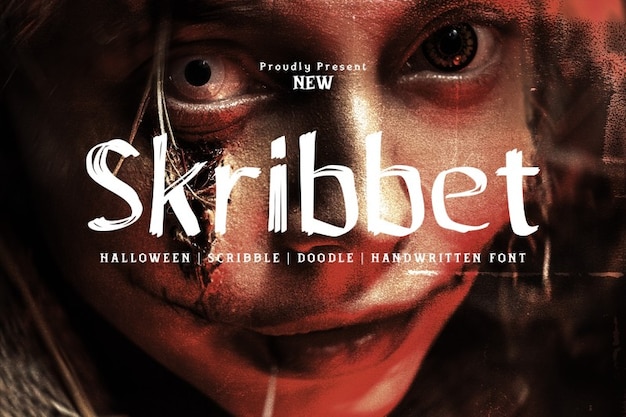
Skribbet
Skribbet Font
Handwritten and hauntingly creepy, Skribbet embodies a spine-tingling Halloween spirit. Its eerie, handcrafted strokes convey a chilling handwritten aesthetic, perfect for eerie tales or Halloween-themed projects. With an unsettling charm, this font brings a shiver-inducing quality to typography, evoking an atmosphere of ghostly tales and spooky narratives, making it an ideal choice for designs seeking a creepy yet captivating handwritten style.